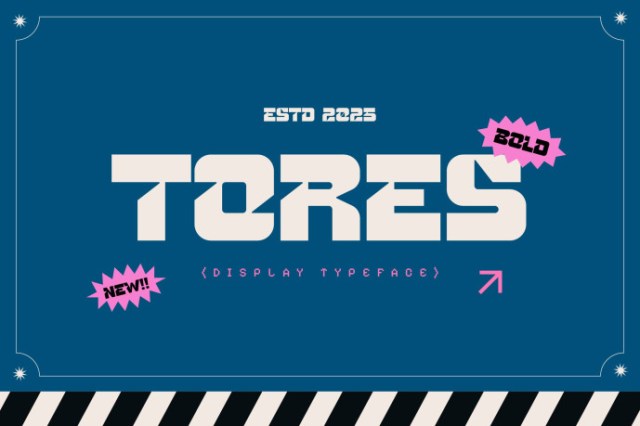
Tores – Modern Block Font
Tores – Modern Block Font is a bold geometric display typeface that blends sharp edges with playful block structures, designed for attention-grabbing titles and expressive layouts. With its powerful proportions and striking angular cuts, this font radiates confidence while keeping a modern, youthful vibe. Its structured geometry makes it perfect for social media graphics, gaming visuals, and urban-inspired branding.
Perfect for poster design, streetwear branding, and editorial layouts, TORES instantly communicates energy and attitude. Its dynamic letterforms capture the spirit of movement, making it an ideal choice for brands targeting music, sports, or lifestyle audiences. Whether you’re designing an impactful campaign slogan or an edgy digital cover, TORES ensures your words leave a strong visual footprint.
Key Features :
• Bold Statement: Thick, angular strokes for powerful, energetic impact
• Geometric Consistency: Balanced proportions create structured yet playful aesthetics
• Youthful Expression: Perfect for gaming, music, and modern lifestyle brands
• Versatile Use Cases: Works seamlessly in posters, album covers, editorial spreads, or merchandise
• Eye-Catching Headlines: Built to dominate visual hierarchy in bold layouts
• Basic Latin A-Z and A-z
• Numbers
• Punctuation